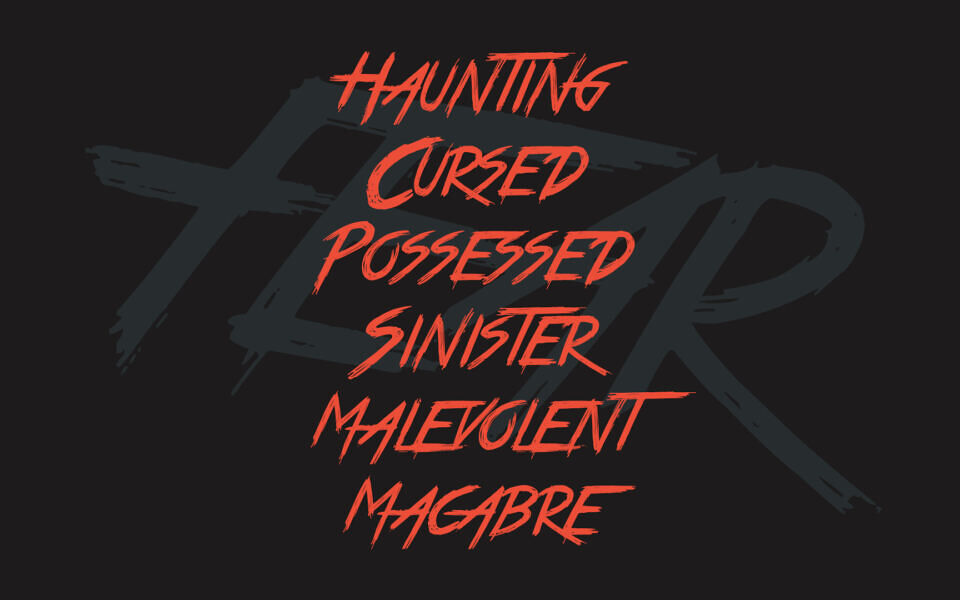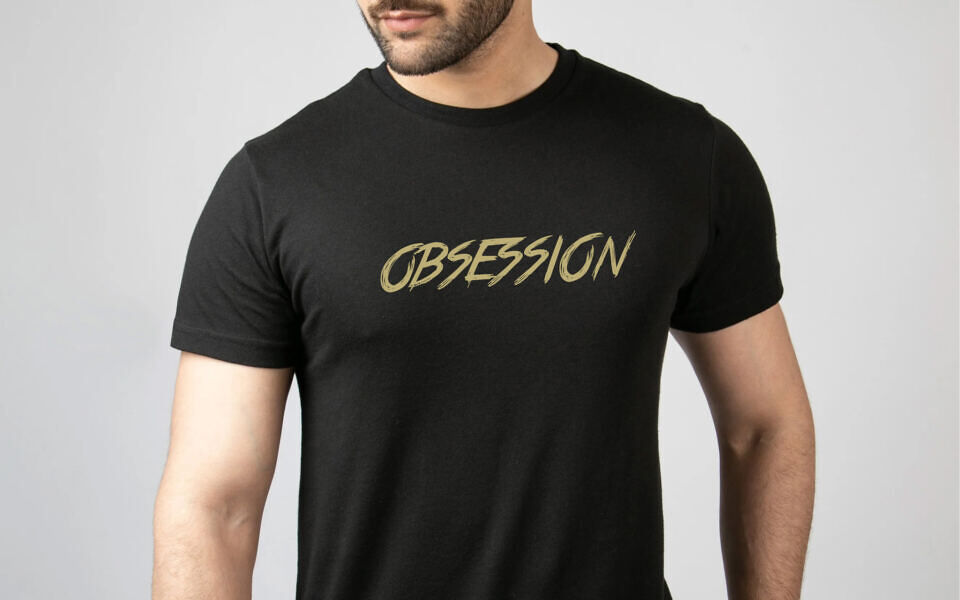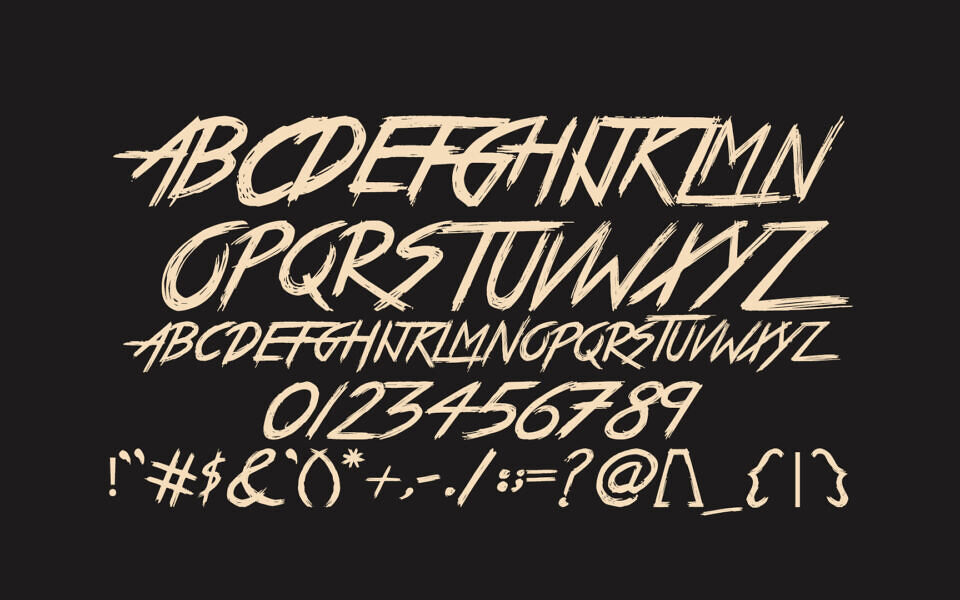
True Lies Font
True Lies by JSHcreates is a striking all-caps horror font designed for maximum impact. Featuring a distressed, hand-drawn aesthetic, it captures a raw, suspenseful energy perfect for gritty creative projects.
This versatile typeface includes numbers and punctuation, making it ideal for display use in posters, book covers, logos, and apparel. Whether you’re crafting a cinematic title or a bold brand identity, True Lies delivers a dark, edgy atmosphere that ensures your text stands out with chilling, high-contrast authority.